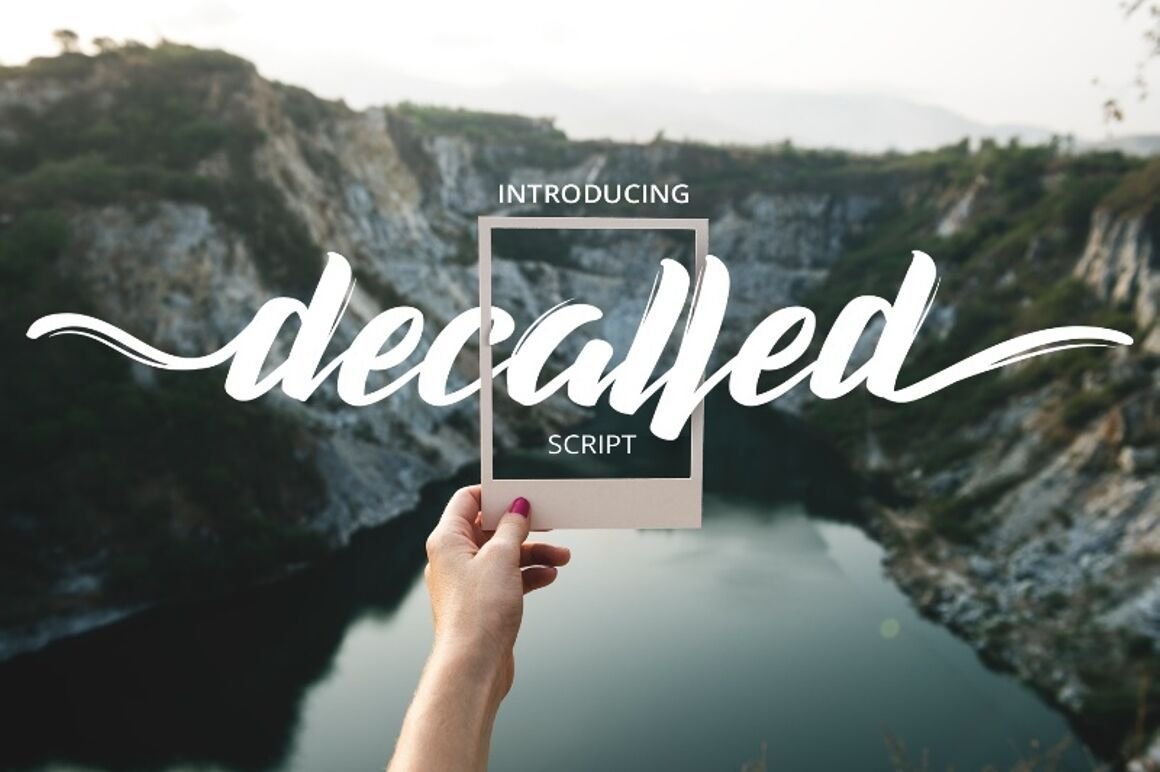
Decalled Script Font – Freebie
Decalled Script
Decalled Script is sharp and elegant free font for commercial use.
It comes with many opentype feature, upper and lower case standard character, punctuation and numerals, multilingual characters, ligatures, stylistic alternates, swash, and many more glyph.
Perfect for your company logos, branding, posters, flyers, greetings, invitations, book covers, quotes, and many more.
Opentype Features
Upper & Lower Case Standard Characters
Punctuations & Numerals
Multilingual Characters
Ligatures, Stylistic Alternates, Swash, & Many Glyphs